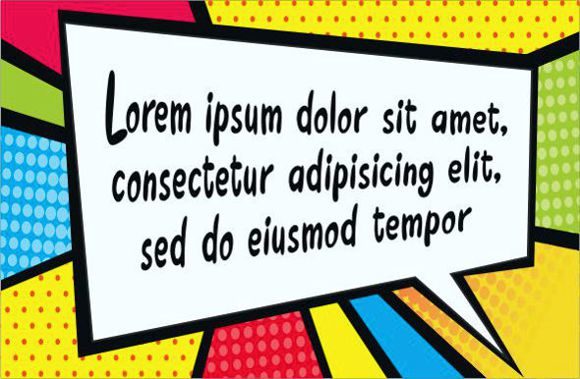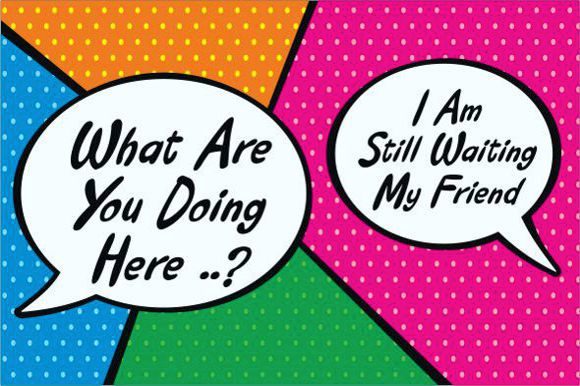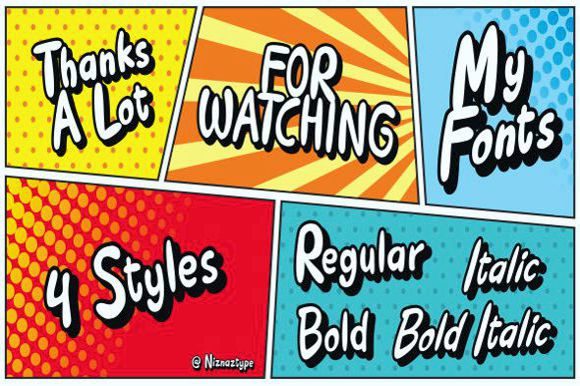
Introducing Happy Boy Font: Elevate Your Designs with a Simple yet Impactful Lettered Display Font
In the world of design, fonts play a crucial role in conveying messages, evoking emotions, and setting the tone for creative projects. Whether you’re a professional designer or a crafty DIY enthusiast, finding the right font can make all the difference. If you’re on the lookout for a font that is both simple and impactful, look no further than the Happy Boy Font. This neat lettered display font is designed to add a touch of personality to your creative ideas and make them stand out from the crowd.
What is Happy Boy Font?
Happy Boy Font is a modern, clean, and highly legible display font that is perfect for a wide range of design applications. Its simplicity is its strength, making it versatile enough to be used in various contexts, from digital designs to print materials. The font’s neat and organized structure gives it a friendly and approachable feel, making it suitable for projects that require a personal touch.
Key Features of Happy Boy Font
- Simplicity: The Happy Boy Font boasts a straightforward and uncomplicated design. Its simplicity ensures that it remains legible even at smaller sizes, making it perfect for a variety of uses.
- Neat Lettering: Each letter is carefully crafted to ensure a clean and uniform look. This neatness adds a level of professionalism to any design.
- Versatility: The font’s simple yet charming design makes it suitable for a wide range of projects, including logos, posters, social media graphics, and more.
- Legibility: One of the standout features of the Happy Boy Font is its high legibility. This makes it an excellent choice for designs where the message needs to be conveyed clearly and effectively.
How to Use Happy Boy Font in Your Designs
Incorporating the Happy Boy Font into your designs is straightforward. Here are a few ideas to get you started:
- Logos and Branding: Use the Happy Boy Font to create a memorable logo or to enhance your brand’s visual identity. Its clean and friendly appearance makes it perfect for businesses looking to convey a positive and approachable image.
- Posters and Flyers: Add a pop of personality to your posters and flyers with the Happy Boy Font. It’s ideal for headings and titles, where you want to grab attention without overwhelming the viewer.
- Social Media Graphics: Stand out on social media with eye-catching graphics that utilize the Happy Boy Font. Whether it’s a quote, a promotion, or an announcement, this font will help your message get noticed.
- Crafting and DIY Projects: If you’re into crafting or DIY projects, the Happy Boy Font can add a professional touch to your handmade cards, scrapbooking, and other paper crafts.
Why Choose Happy Boy Font?
With so many fonts available, why should you choose the Happy Boy Font for your projects? Here are a few compelling reasons:
- Unique yet Familiar: While the Happy Boy Font has a distinctive look, it’s not overly quirky. This balance makes it unique enough to stand out but familiar enough to be easily readable.
- Time-Saving: The font’s clear and simple design means you can create professional-looking designs quickly, saving you time and effort.
- Emotional Connection: The friendly vibe of the Happy Boy Font can help create an emotional connection with your audience, making your designs more impactful.
| Font Name | Happy Boy Font |
| Author | Niznaz Graphic Studio |
The Happy Boy Font is a valuable addition to any designer’s toolkit. Its simplicity, neat lettering, and versatility make it an excellent choice for a wide range of projects. By incorporating this font into your designs, you can create visually appealing and effective content that stands out. Whether you’re a professional designer or a hobbyist, the Happy Boy Font is sure to elevate your creative ideas and help you achieve your design goals.